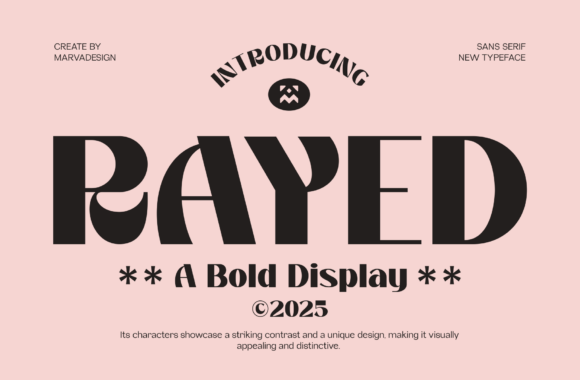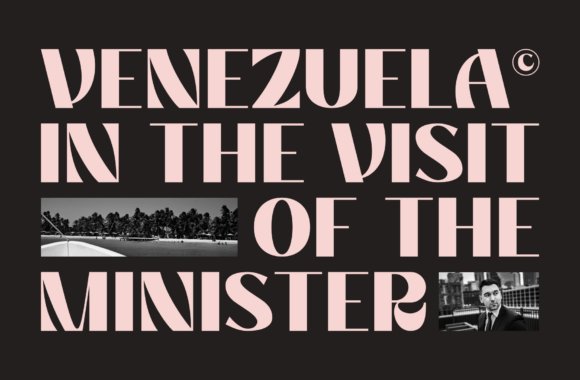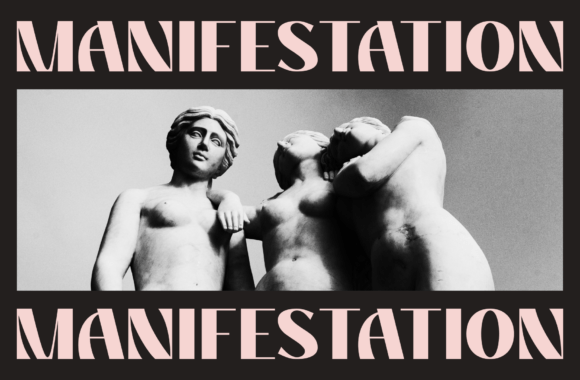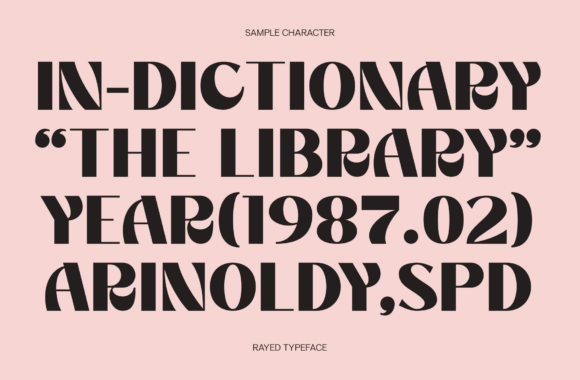
Rayed Font: Unique Bold Display Font for Modern Branding & Logos
About the Rayed Font
Presenting Rayed Font, a unique and stylish typeface that will make your work stand out. Rayed is a bold display typeface combined with sans-serif elements. Its characters showcase a striking contrast and a unique design, making it visually appealing and distinctive. This font is versatile and works excellently in both uppercase and lowercase formats, making it suitable for various design purposes such as branding, headlines, and creative projects.
Rayed excels in large-scale applications like headlines, posters, and logos where its bold strokes and distinctive character make a strong visual statement. It’s ideal for brands aiming for a modern, confident image, perhaps in the technology, fashion, or entertainment sectors. However, its strong contrast and weight make it less suitable for body text or UI elements where readability is paramount; smaller sizes lose clarity.
Pairing Rayed effectively requires considering its strong personality. A clean, geometric sans-serif like Montserrat or a neutral serif such as Lato would provide a sophisticated counterpoint, balancing its boldness with legibility in supporting text. For a more playful approach, a rounded sans-serif could work, but avoid anything too ornate which might compete visually.
Rayed’s core personality is bold and modern, conveying energy and confidence. Its versatility extends to both uppercase and lowercase usage, but its impact is maximized in headline applications and branding contexts requiring a powerful visual presence.
Rayed Font Usage Examples
Rayed Font Example